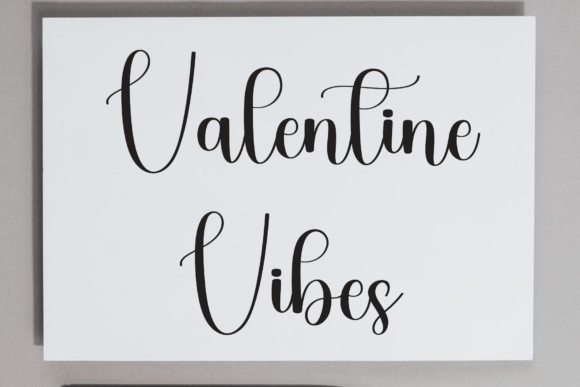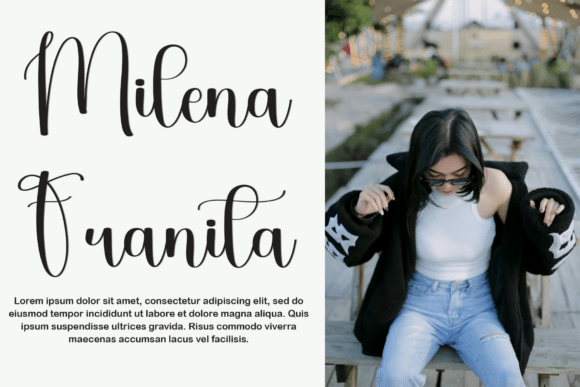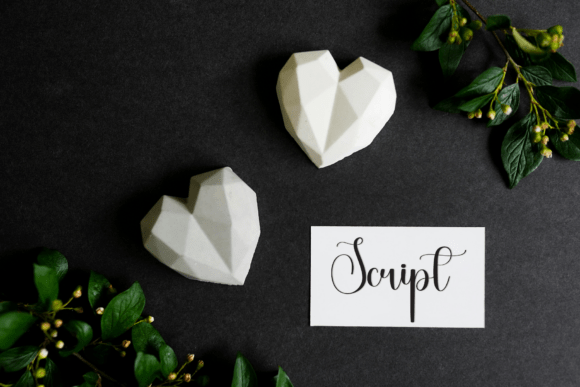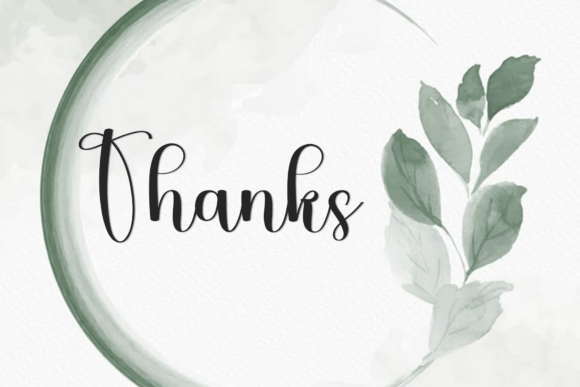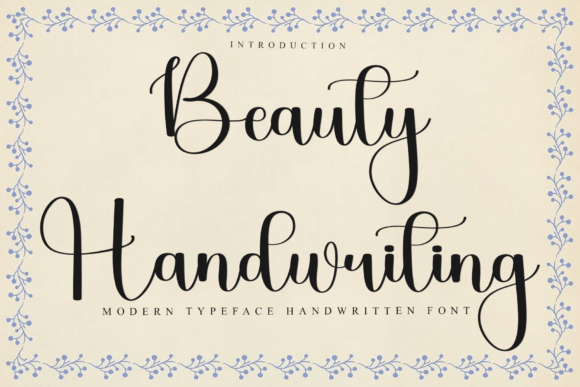
Introducing Beauty Handwriting Font: Elevate Your Designs with Elegance and Sophistication
Are you a designer or crafter looking for a font that embodies the perfect blend of style, elegance, and readability? Look no further than Beauty Handwriting Font, an exquisite handwritten script font that is sure to elevate your designs to new heights. With its flowing strokes, refined ligatures, and delicate curves, this beautiful font captures the essence of natural penmanship with a touch of sophistication.
What Makes Beauty Handwriting Font Special?
Beauty Handwriting Font is more than just a font – it’s an experience. Its elegant and modern design makes it perfect for a wide range of applications, from wedding invitations and branding to greeting cards, fashion lookbooks, logos, social media graphics, product packaging, and event designs. The font’s versatility is unmatched, allowing you to use it in various contexts to add a touch of refinement and polish to your work.
Key Features of Beauty Handwriting Font
• Flowing Strokes: The font features smooth, flowing strokes that mimic the natural movement of handwriting, giving your designs a personal and authentic touch.
• Refined Ligatures: The font includes refined ligatures that add a level of sophistication and elegance to your text, making it perfect for high-end branding and designs.
• Delicate Curves: The font’s delicate curves and subtle nuances give it a unique and distinctive character that sets it apart from other fonts.
• Perfect Balance of Style and Readability: Beauty Handwriting Font strikes the perfect balance between style and readability, making it easy to read and understand, even in smaller font sizes.
Use Cases for Beauty Handwriting Font
Beauty Handwriting Font is an incredibly versatile font that can be used in a wide range of applications, including:
• Wedding Invitations: Add a touch of romance and elegance to your wedding invitations with this beautiful font.
• Branding: Use Beauty Handwriting Font to create a unique and memorable brand identity that stands out from the crowd.
• Greeting Cards: Create beautiful and heartfelt greeting cards that will leave a lasting impression on your loved ones.
• Fashion Lookbooks: Add a touch of sophistication and glamour to your fashion lookbooks with this stunning font.
• Logos: Create a unique and memorable logo that reflects your brand’s personality and values.
• Social Media Graphics: Use Beauty Handwriting Font to create eye-catching social media graphics that will engage and inspire your followers.
• Product Packaging: Add a touch of elegance and sophistication to your product packaging with this beautiful font.
• Event Designs: Create stunning event designs, such as posters, flyers, and brochures, that will leave a lasting impression on your attendees.
Why Choose Beauty Handwriting Font?
With so many fonts available, why choose Beauty Handwriting Font? Here are just a few reasons:
• Timeless Charm: This font has a timeless charm that will never go out of style, making it a great investment for designers and crafters.
• Romantic and Polished Touch: Beauty Handwriting Font adds a romantic and polished touch to any project, making it perfect for designs that require a level of sophistication.
• Handcrafted Authenticity: This font has a handcrafted authenticity that gives it a unique and distinctive character.
• Chic and Contemporary Flair: Beauty Handwriting Font has a chic and contemporary flair that makes it perfect for modern designs.
In conclusion, Beauty Handwriting Font is an exquisite handwritten script font that is sure to elevate your designs to new heights. With its flowing strokes, refined ligatures, and delicate curves, this beautiful font captures the essence of natural penmanship with a touch of sophistication. Its versatility, timeless charm, and handcrafted authenticity make it a great choice for designers and crafters looking to add a touch of elegance and sophistication to their work. Whether you’re creating wedding invitations, branding materials, or social media graphics, Beauty Handwriting Font is the perfect choice.